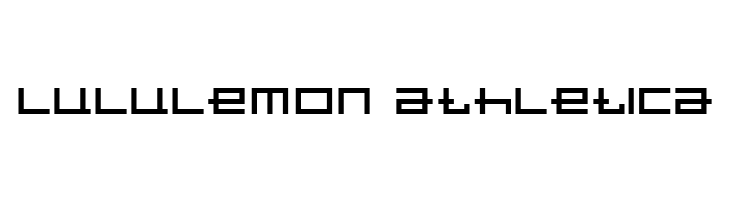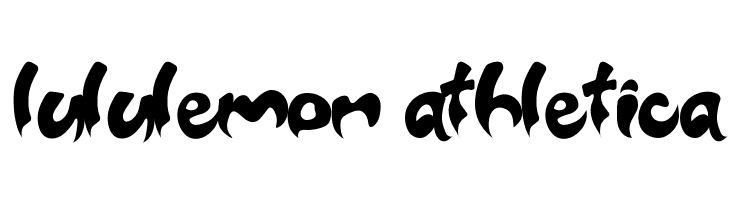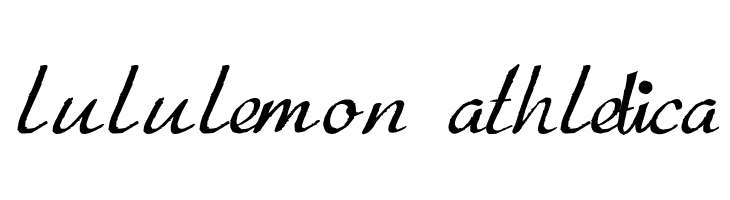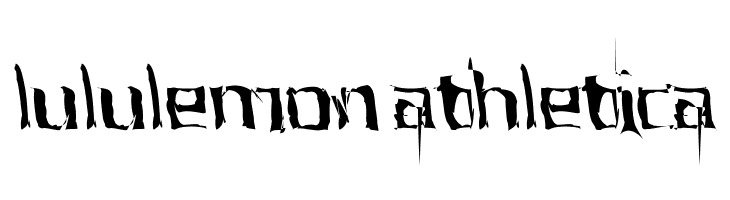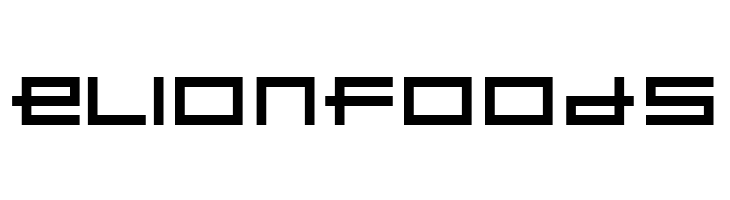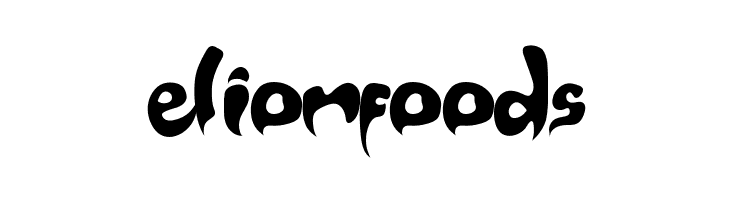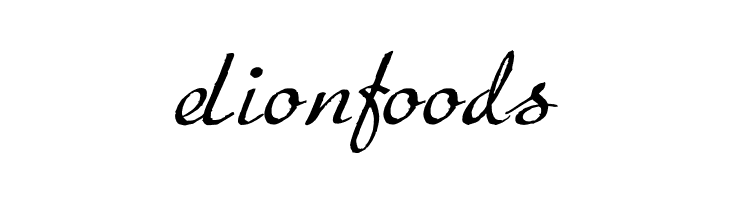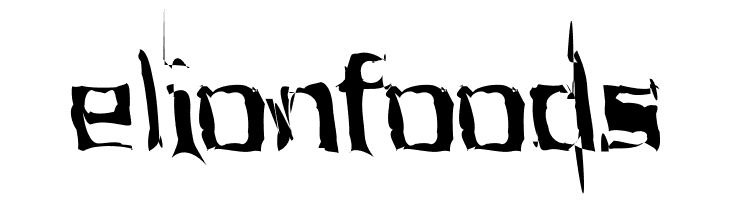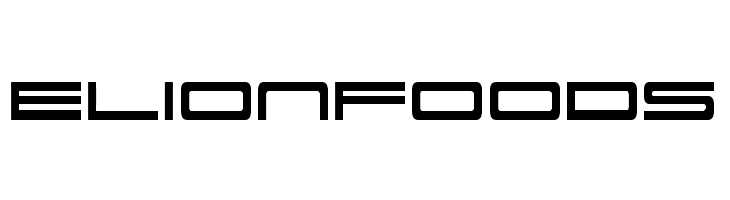
A bold, cursive font with dynamic and fluid strokes.
A fluid and elegant handwritten script font with artistic flourishes.
A bold, geometric font with a pixelated, digital aesthetic.
A bold, rounded font with a modern and playful style.
A distressed, edgy font with jagged, irregular characters.
A bold, artistic font with fluid, organic shapes and a modern calligraphic style.
A modern, geometric font with a clean and slender design.